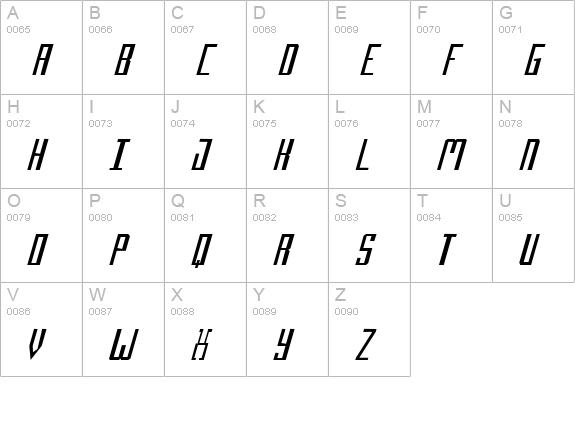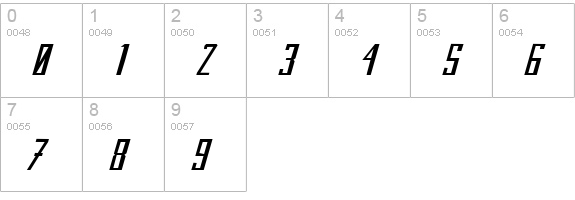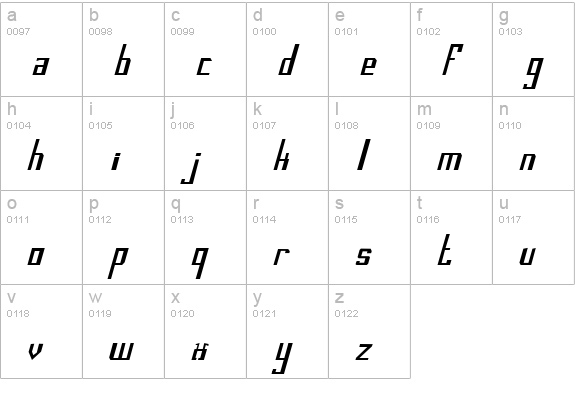
Salinas Motion Clerk 1 Font Details
Salinas Motion Clerk 1 font is a visually stunning typeface that effortlessly captures attention with its unique and dynamic design. This font is the perfect choice for any project that requires a touch of modern elegance and sophistication. With its sleek and fluid lines, Salinas Motion Clerk 1 font brings a sense of movement and vitality to your designs. Whether used for branding, advertising, or editorial purposes, this font will undoubtedly leave a lasting impression on your audience. One of the standout features of Salinas Motion Clerk 1 font is its versatility. It can be used in various contexts, from headlines and titles to body text, ensuring a consistent and cohesive visual identity throughout your project. What sets Salinas Motion Clerk 1 font apart is its ability to convey a sense of freedom and creativity. Its bold and expressive nature allows designers to experiment and push boundaries, making it an excellent choice for those seeking a font that stands out from the crowd. The best part? Salinas Motion Clerk 1 font is freely available to download at FontsMarket.com. This means that you can easily access this remarkable typeface and incorporate it into your designs without any hassle. So why wait? Give your projects the attention they deserve with Salinas Motion Clerk 1 font and let your creativity soar.